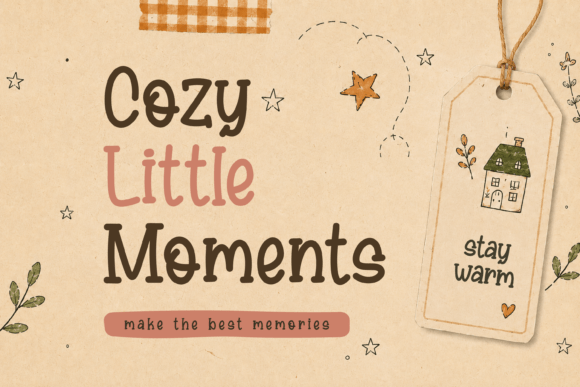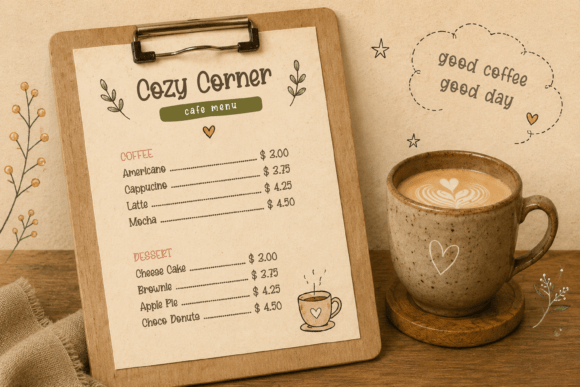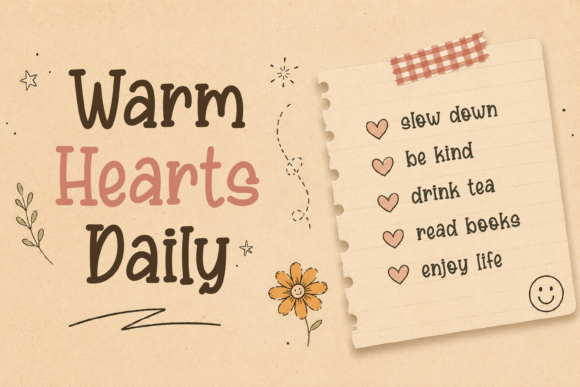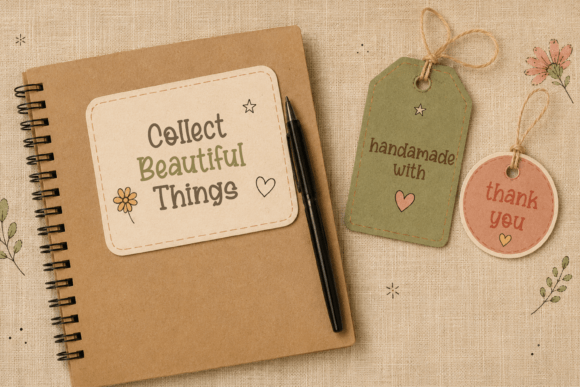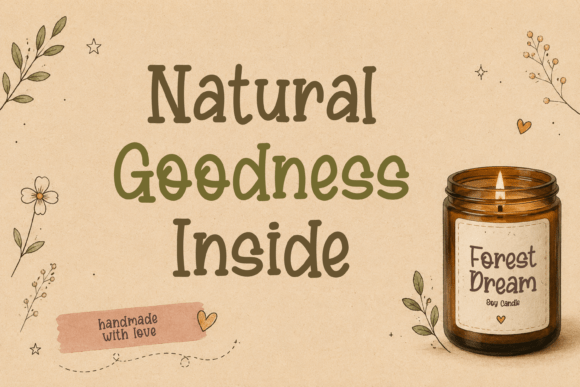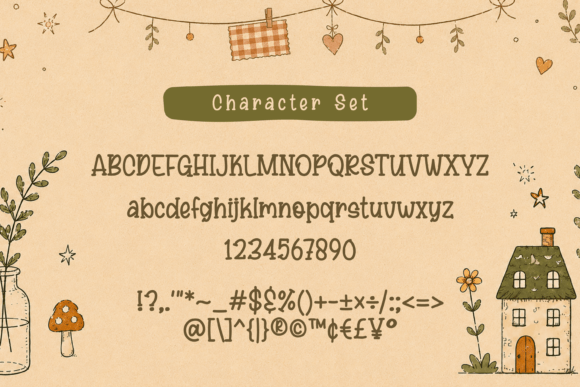
Introduction to Mellow Wiggle Font
Mellow Wiggle is a playful handwritten font with a warm, whimsical, and cheerful personality.
Its organic curves and imperfect handmade style create a fun and friendly appearance that feels natural, cute, and full of charm Designed with a casual hand-lettered touch, Mellow Wiggle is perfect for childrenโs books, playful branding, greeting cards, social media content, posters, packaging, stickers, craft projects, and creative designs that need a soft and joyful vibe.
Key Features of Mellow Wiggle Font
Why Choose Mellow Wiggle Font?